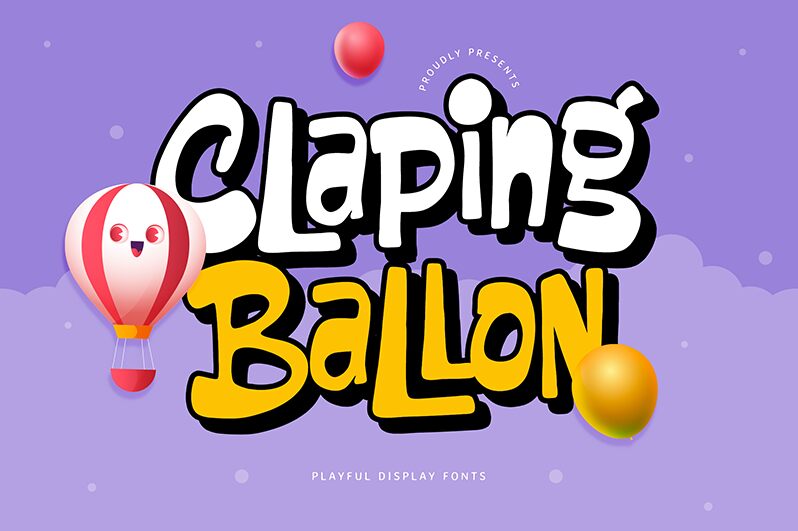
Claping Ballon font by Namara Creative is a free font that dances with lively enthusiasm, creating an inviting and fun atmosphere. Channeling cartoon-inspired charm, it brings together chunkiness and playfulness in a vibrant and modern display. Its rounded and youthful character suits it perfectly for contemporary applications, especially in projects looking for a friendly and informal touch.
The font finds its best use in children’s products, toy branding, casual events, birthday invitations, school projects, digital games, playful packaging, animated movie titles, comic books, educational websites, and social media graphics. Its bold and energetic style guarantees an engaging and entertaining visual appeal.
Playful display font featuring bold, rounded, and friendly letterforms. This fun cartoon font is ideal for children's designs, party invitations, greeting cards, posters, kids' branding, and cheerful typography projects.